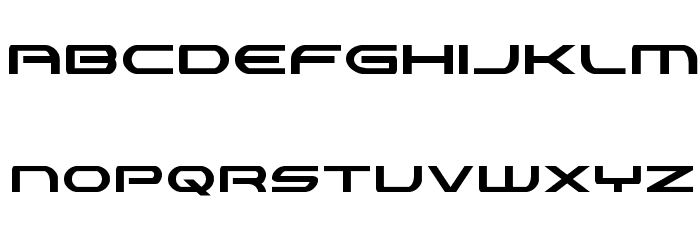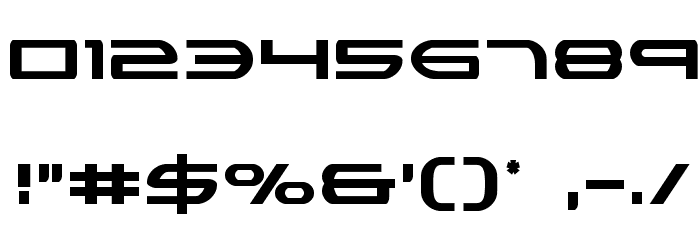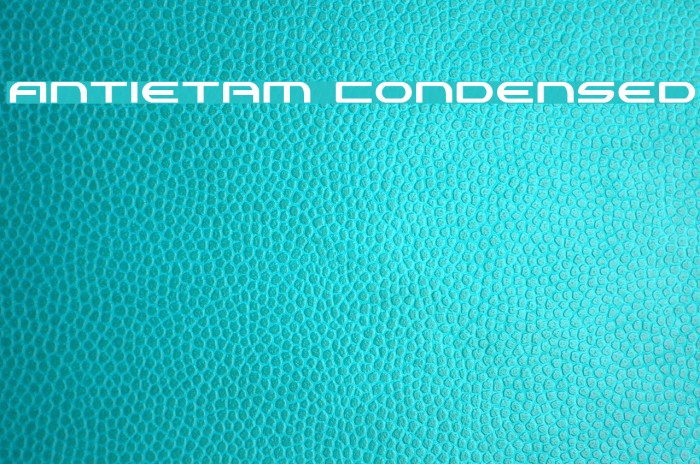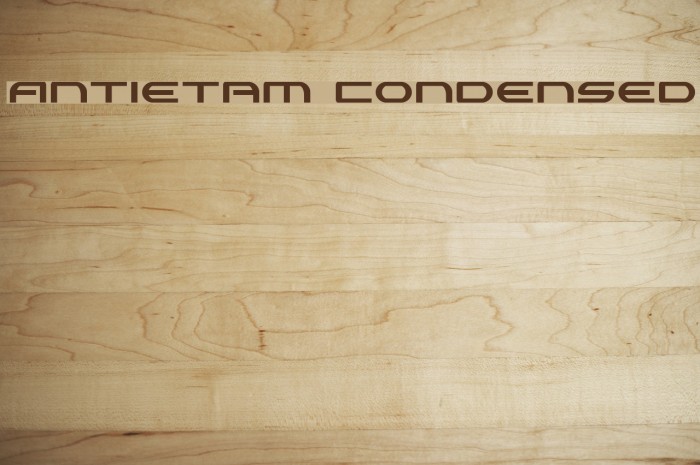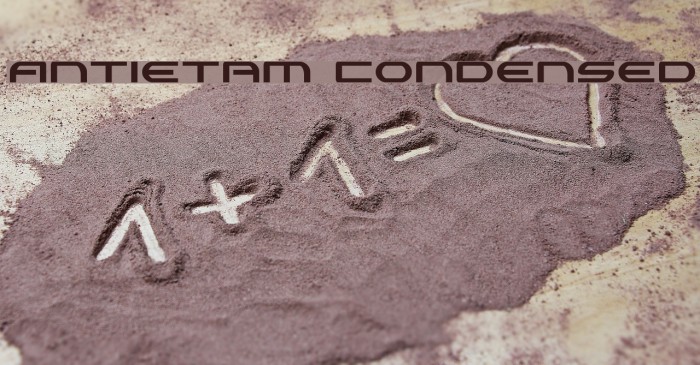
Antietam Condensed Font
This font features a sleek, futuristic design with a condensed structure. The characters are uniformly aligned with a geometric precision, creating a modern and streamlined appearance. The uppercase and lowercase letters maintain a consistent height, contributing to its uniformity. The numerals and special characters are designed with the same attention to detail, ensuring readability and style. The font's condensed nature makes it ideal for space-saving applications while maintaining a bold presence.
A sleek, futuristic, and condensed font with geometric precision.
- Proposed Projects: Ideal for technology branding, sci-fi themed projects, modern posters, and digital interfaces.